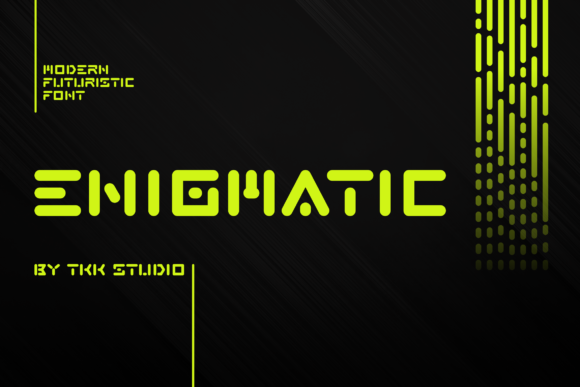
In the vast digital realm, where creativity reigns supreme, lies a font that defies convention and captivates the imagination – the Enigmatic Font. This masterpiece from the tokokoo.studio foundry is not just a font; it's an artistic odyssey that transports your designs to extraordinary new dimensions.
Immerse yourself in the world of Enigmatic, where abstract shapes dance in harmonious chaos, creating a visual spectacle that commands attention. Its bold and unconventional strokes ignite the senses, leaving an indelible mark on your creative endeavors.
Unleash your inner artist and let Enigmatic transform your projects into captivating masterpieces. Whether you're crafting logos that demand remembrance, designing posters that ignite curiosity, or creating digital content that sparks conversations, Enigmatic is your ultimate companion.
Elevate your gaming experience to new heights with Enigmatic, the ultimate font for video game enthusiasts. Its dynamic and captivating style breathes life into virtual worlds, immersing players in a realm of wonder and excitement. From character designs that exude personality to captivating user interfaces that captivate the senses, Enigmatic is the key to unlocking an extraordinary gaming experience.
With Enigmatic, the possibilities are boundless. Its versatility transcends genres, making it the perfect choice for a wide spectrum of creative projects. From branding and marketing materials that leave a lasting impression to social media posts that spark engagement, Enigmatic is your secret weapon for captivating audiences and leaving them spellbound.
Take the creative leap today and embrace the Enigmatic Font. Step into a world where fonts are more than just characters; they're expressions of your boundless imagination, ready to ignite your designs with brilliance.